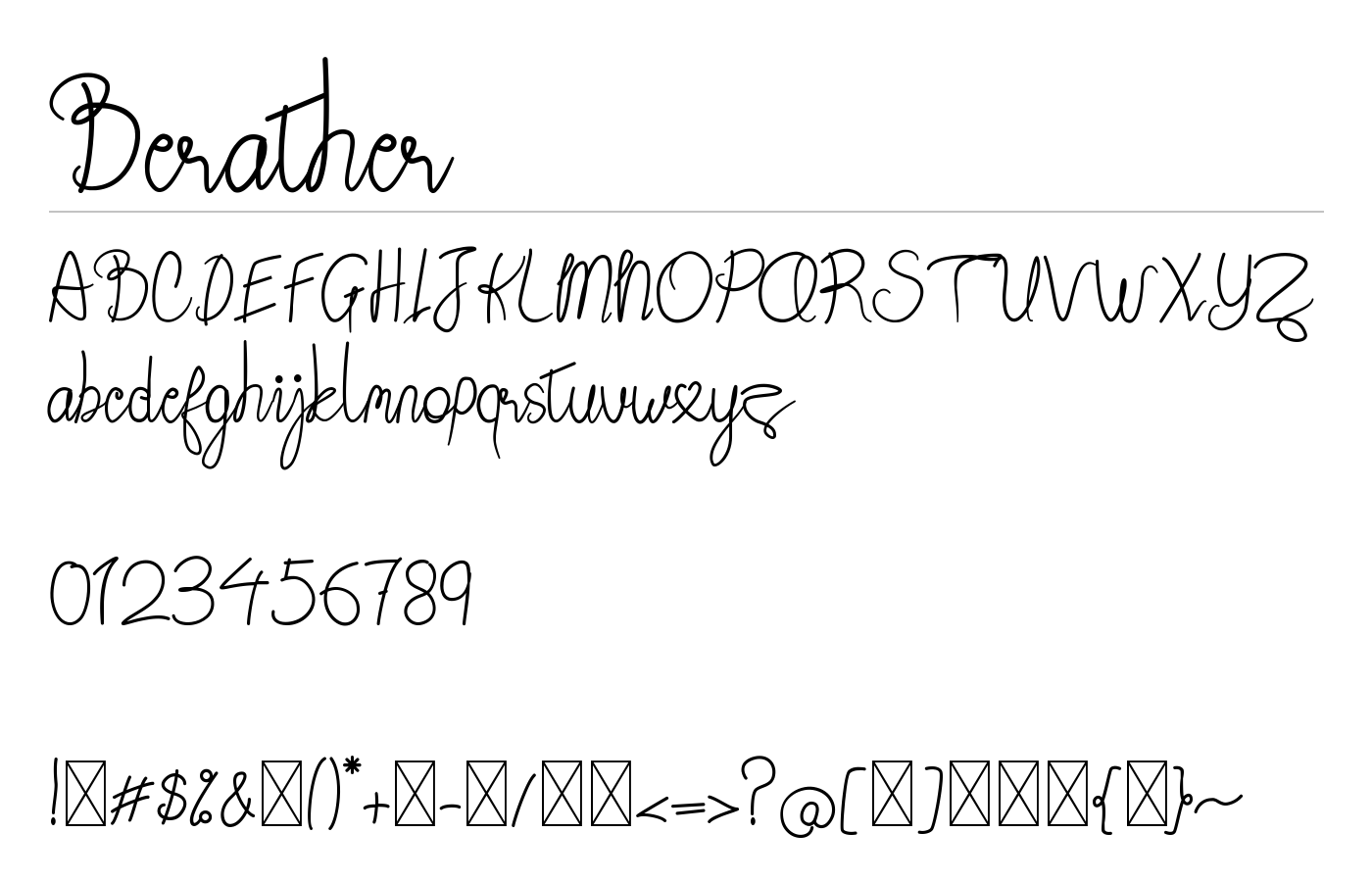
Berather is a delicate and whimsical handwritten script font characterized by its thin, flowing lines and playful loops, lending it a casual yet elegant personality. Its tall, narrow letterforms with a mix of single and double-story characters give it a charming, organic feel perfect for creative branding, invitations, and lighthearted editorial designs. This font shines in projects seeking a personal, friendly touch without sacrificing readability or style.
Berather Font
About Berather Font
| Font family | Berather Font |